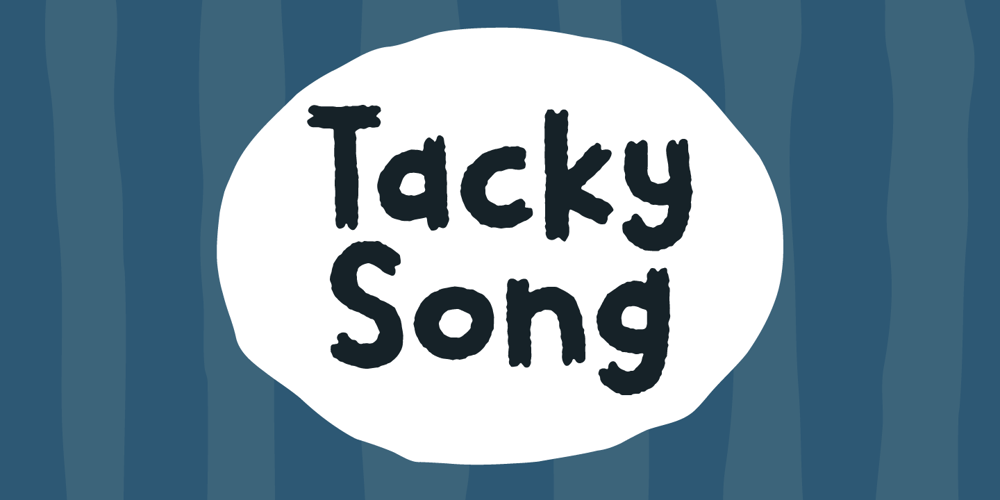
Tacky Song Font Family was designed by Jakob Fischer and published by Bogstav. Tacky Song contains 1 styles and family package options. To be honest – there is nothing tacky about this font! The font has its origins in both comic and graffiti, but can be used in a great variety where something handmade/comic/unusual is needed!